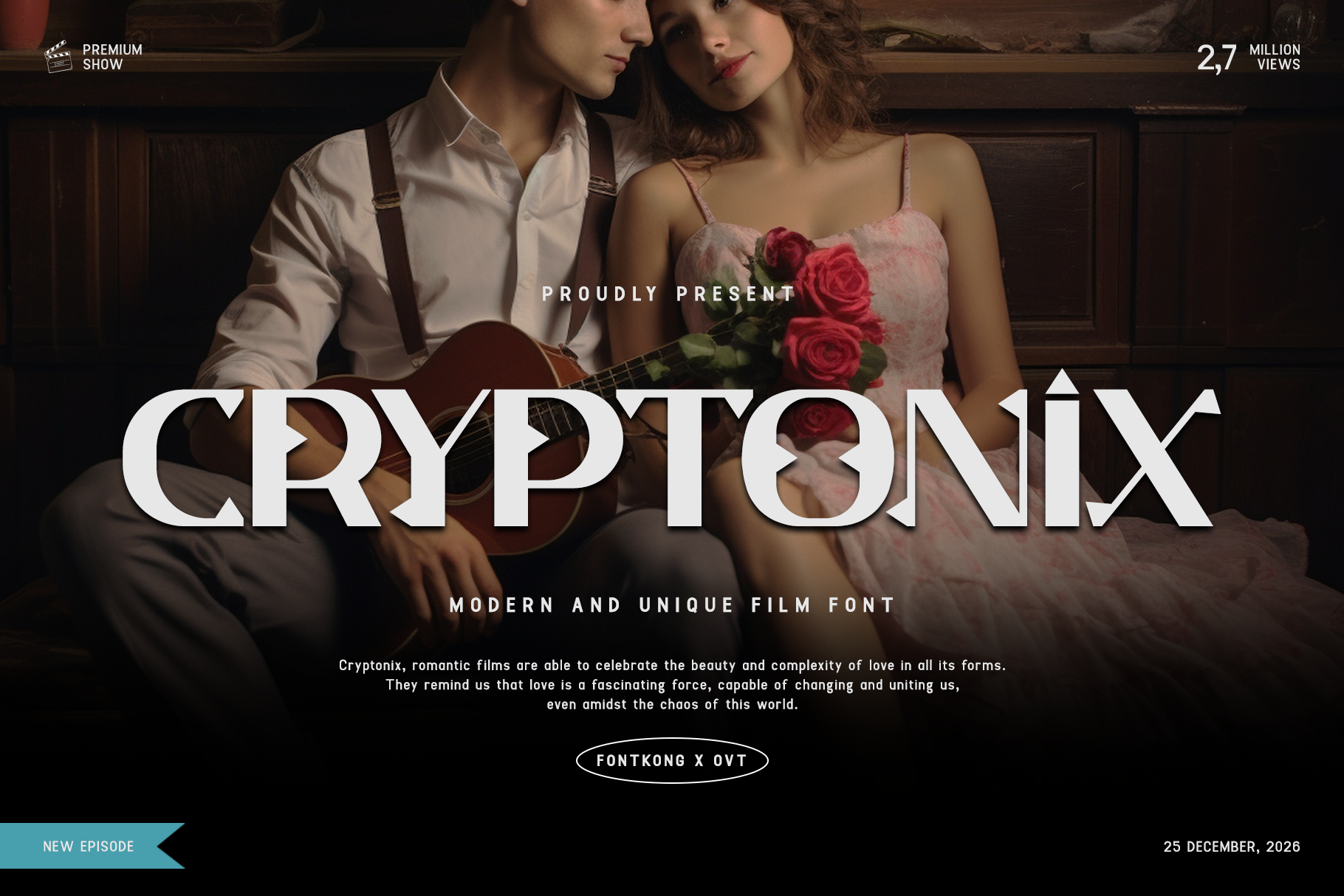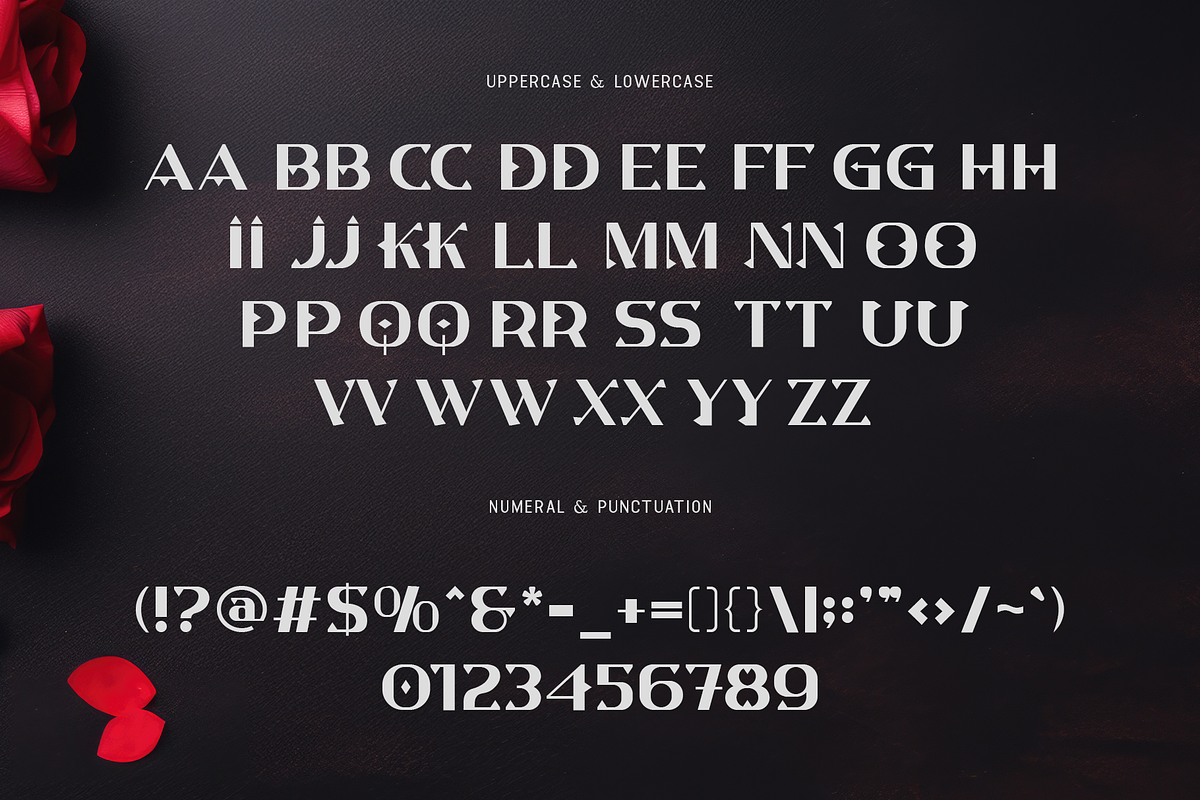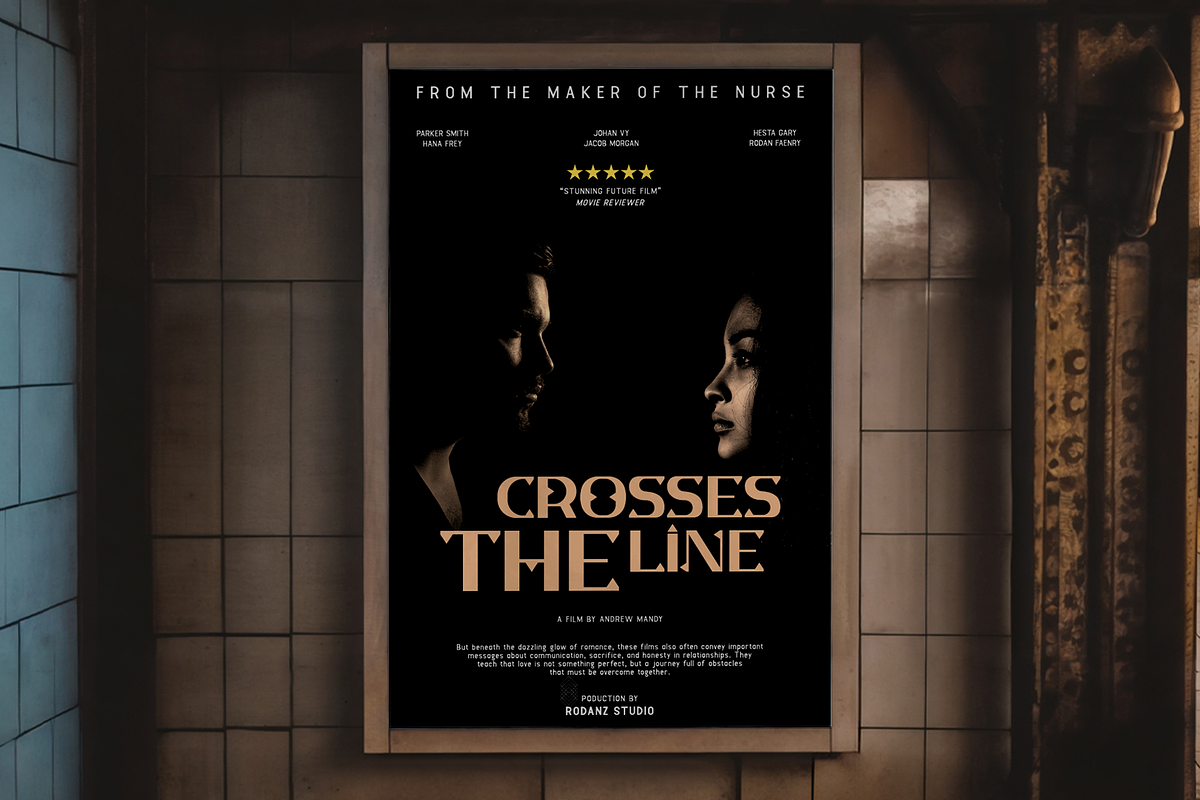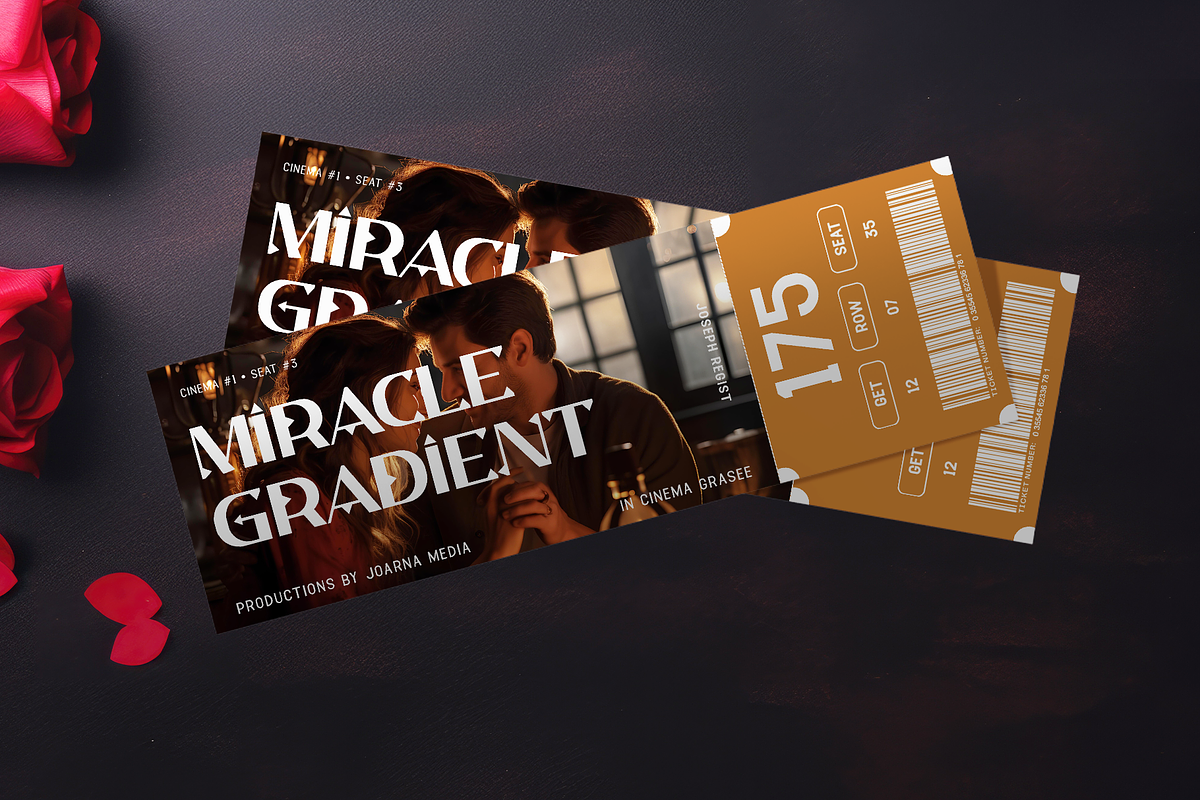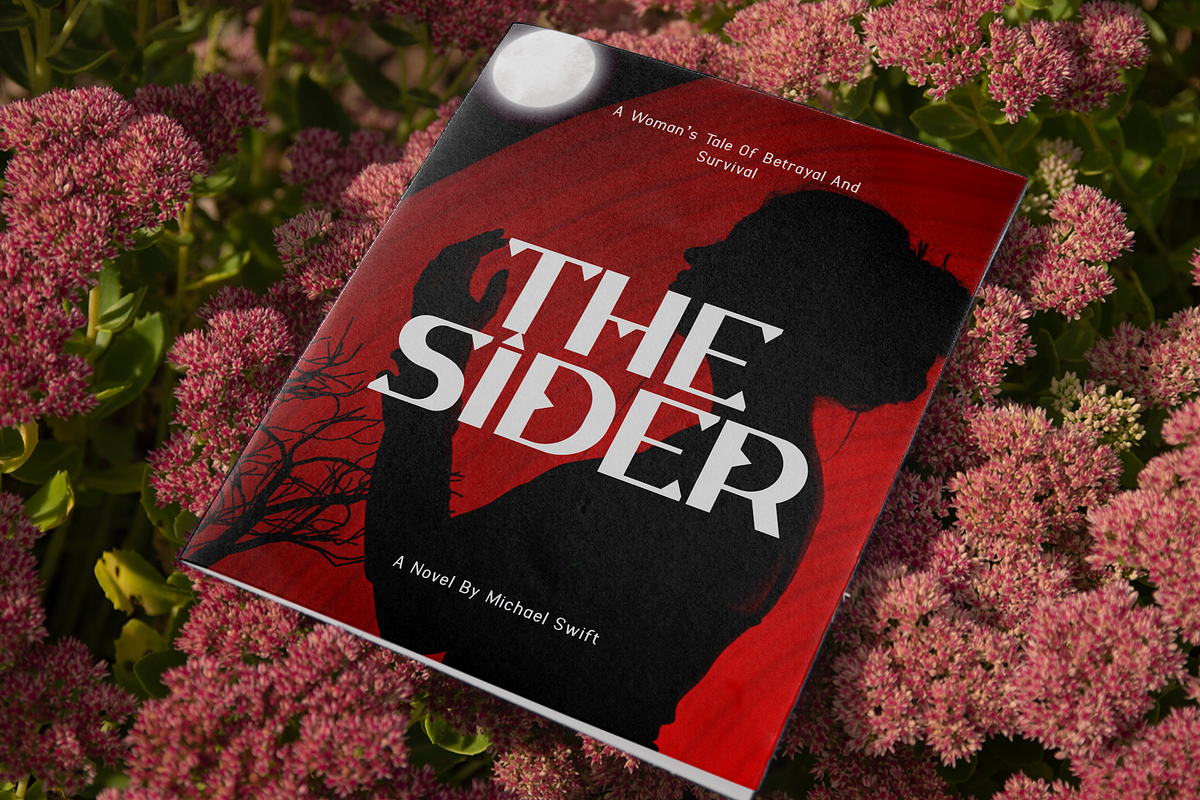
Cryptonix-Modern & Unique Film Font
Cryptonix - Modern and Unique Film Font
Introducing "Cryptonix," a modern and unique film font designed to elevate your cinematic projects with a fresh and innovative touch. Perfect for filmmakers, graphic designers, and creatives looking to make a bold statement, Cryptonix combines contemporary design with distinctive character to deliver a standout typographic experience.
Ideal for film titles, movie posters, trailers, and branding materials, Cryptonix's sleek lines and unique forms provide a dynamic visual appeal. Each character is meticulously crafted to ensure clarity and impact, making your designs memorable and captivating.
The "Cryptonix" font includes a comprehensive set of uppercase and lowercase letters, numbers, and punctuation marks, providing versatility and flexibility for a variety of design applications. Whether you're working on blockbuster film promotions or creating eye-catching visual content, Cryptonix enhances your projects with its modern and distinctive style.
Elevate your cinematic vision with Cryptonix, a film font that brings modern sophistication and unique flair to every frame.